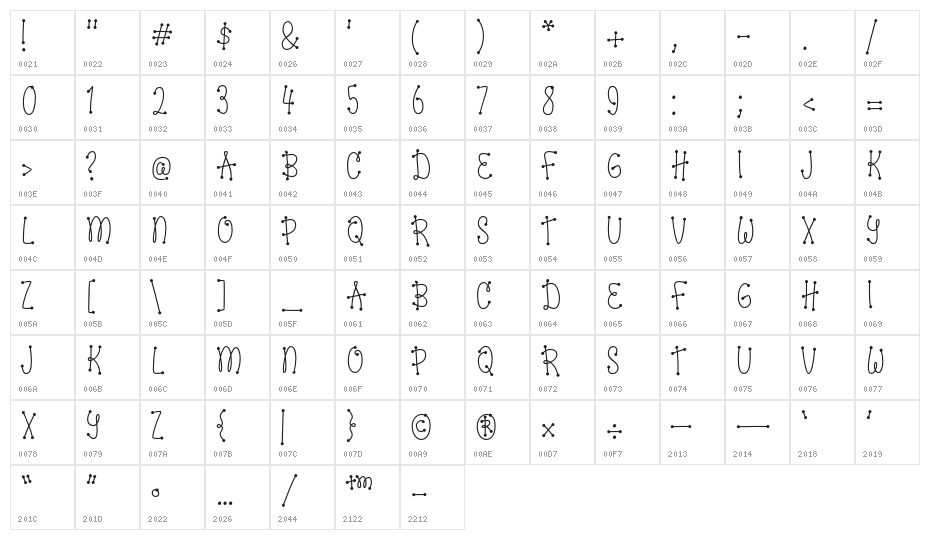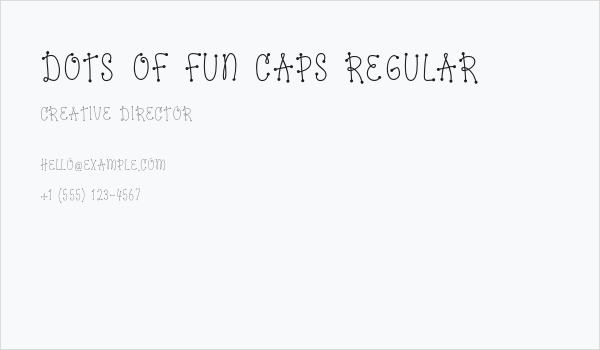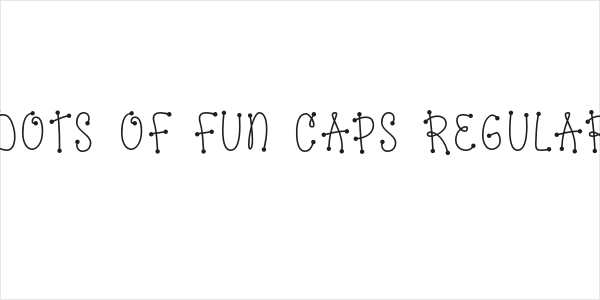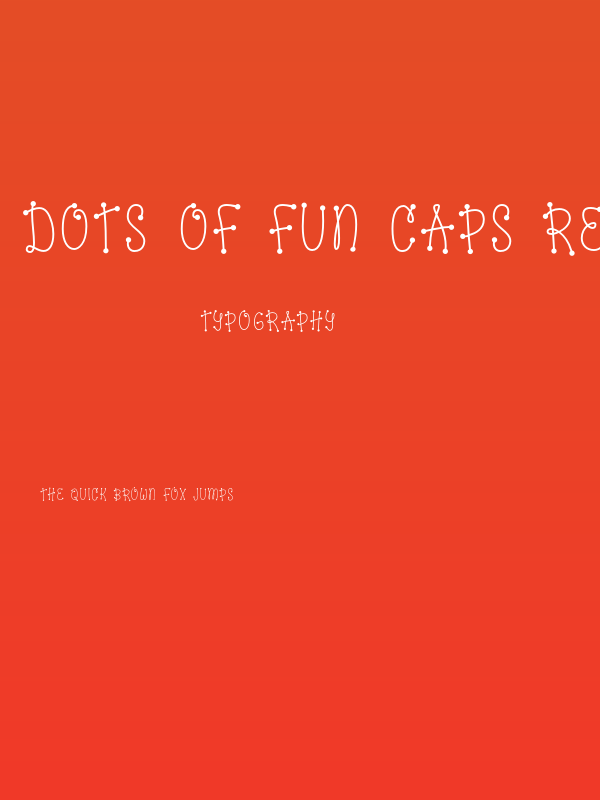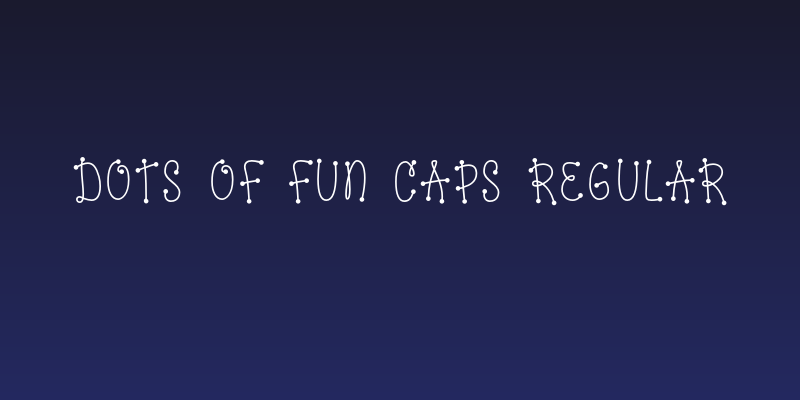
Dots of Fun Caps Regular Font
Dots of Fun Caps Regular Description
This playful and whimsical font features uppercase letters with a unique dotted design, where each character is adorned with small dots at key points, giving it a fun and lively appearance. The lowercase letters maintain this dotted theme, creating a cohesive and engaging look. The numerals are similarly styled, ensuring consistency across all characters. The special characters, including punctuation and symbols, are also integrated with the dotted motif, enhancing the overall playful aesthetic. This font is ideal for projects that require a touch of creativity and lightheartedness, making it perfect for children's books, playful branding, or any design that seeks to capture a sense of fun and imagination.